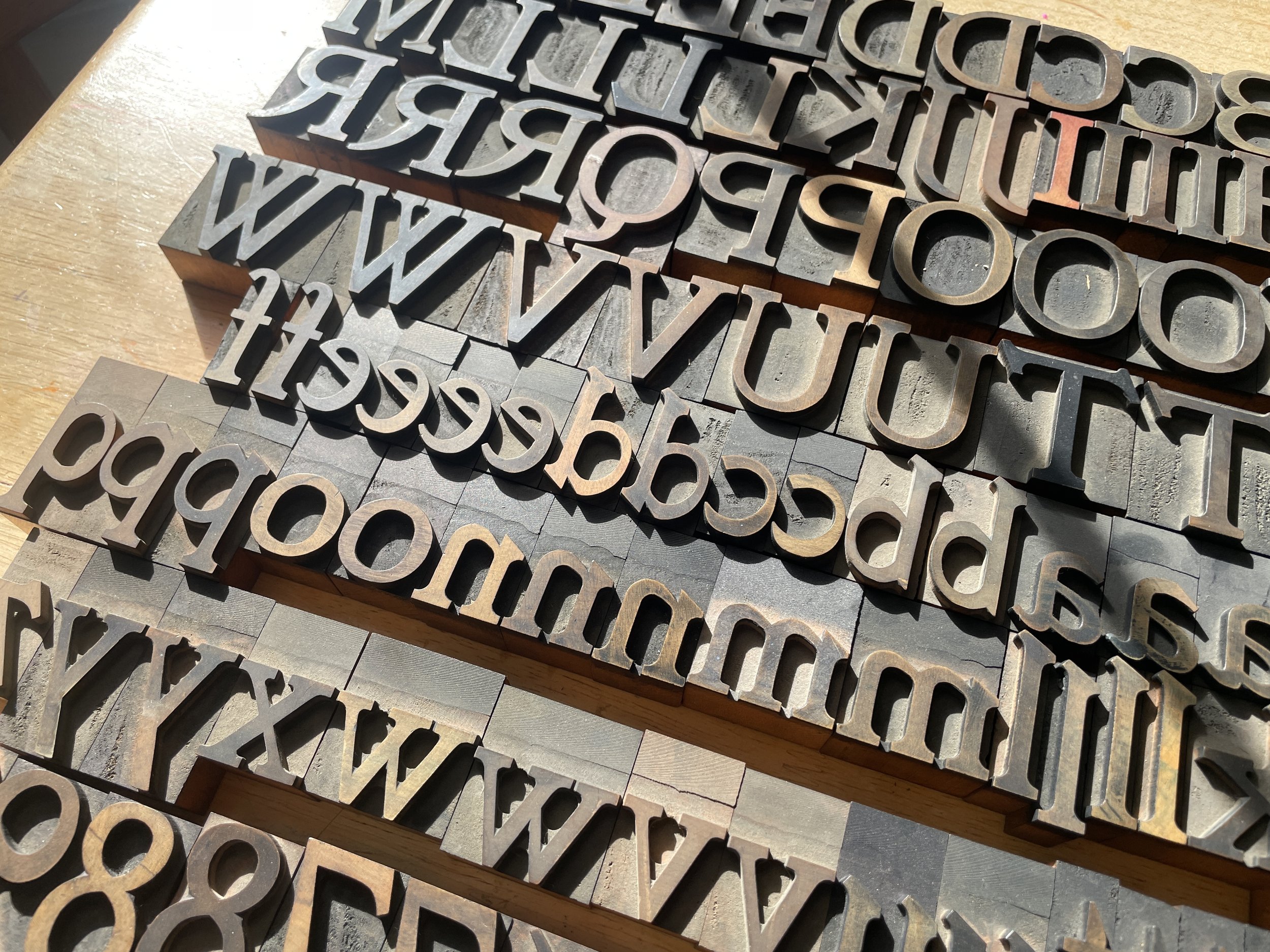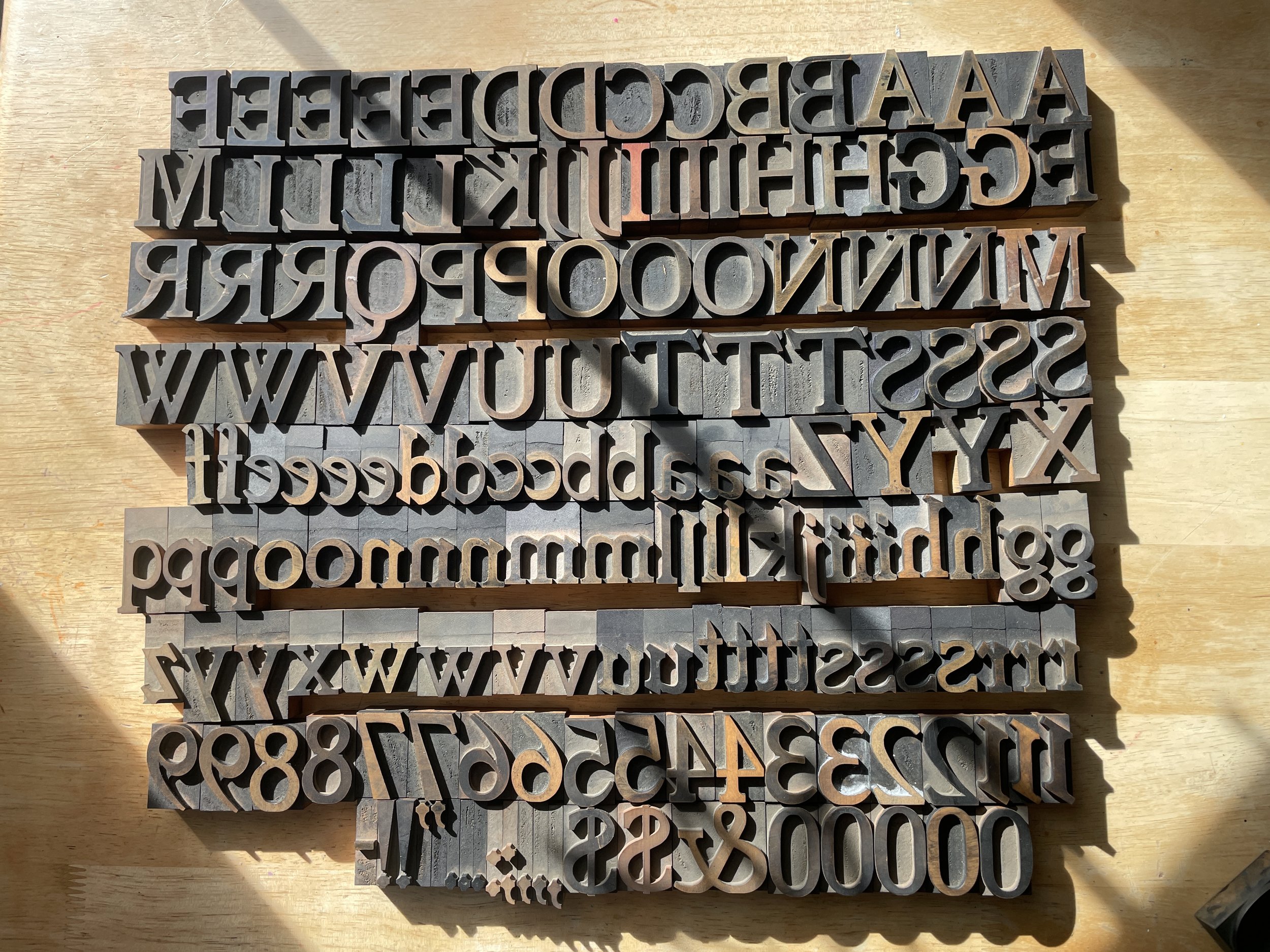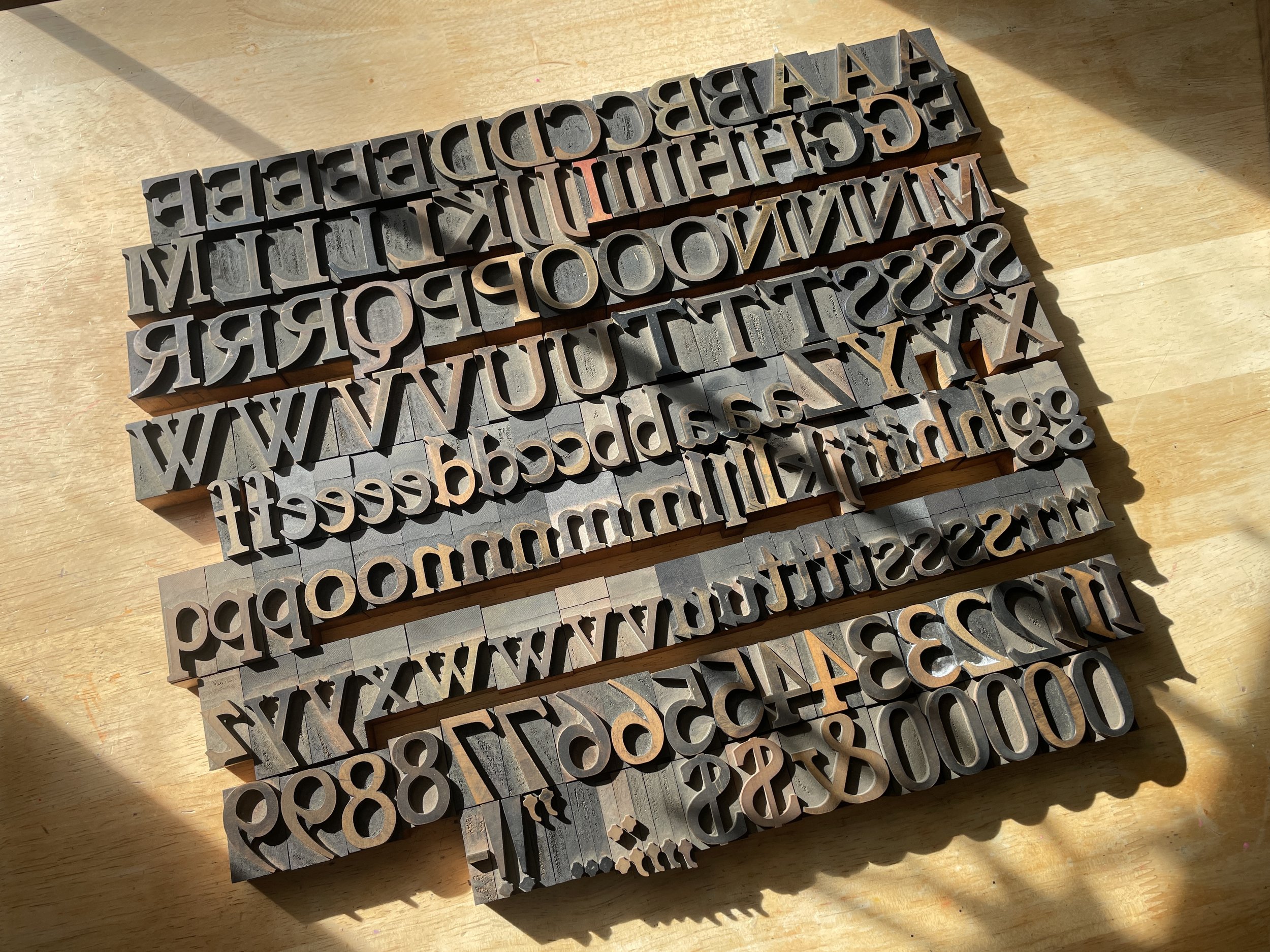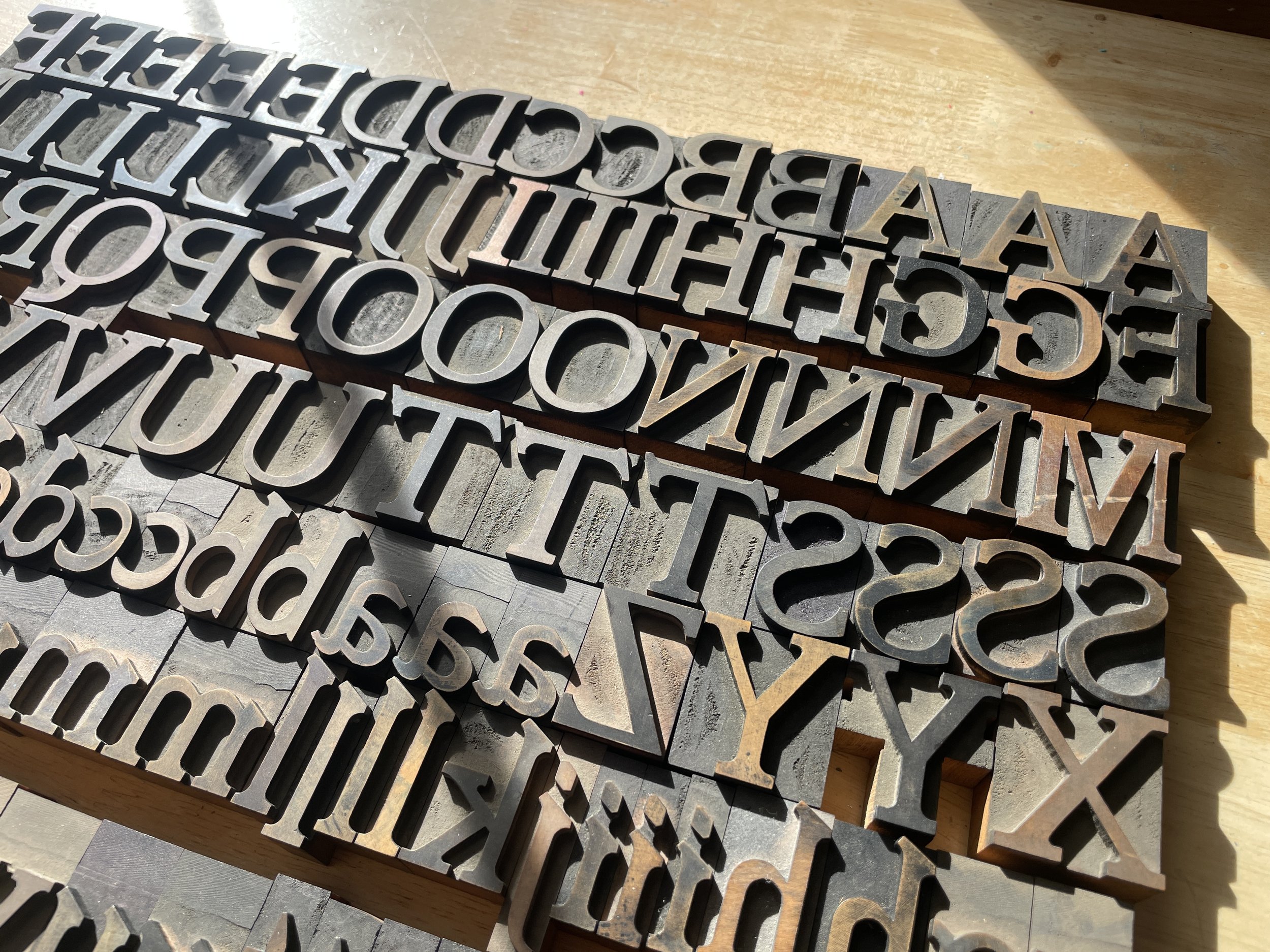
10 Line Antique Serif Wood Type Font (W46)
A beautiful early twentieth century American 10 line gothic wood type with upper and lowercase. Includes all shown.